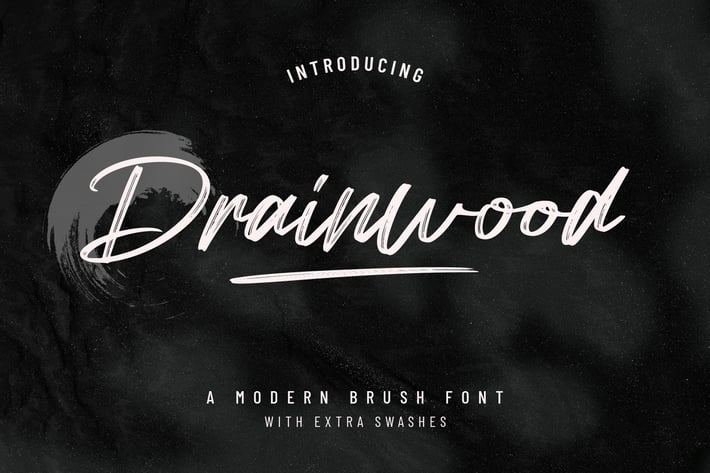
Drainwood Natural Brush Font
Drainwood is a modern brush script that is perfect for any modern design. It can be used for various purposes such as logos, wedding invitations, headings, t-shirts, letterhead, signage, labels, news, posters, badges and so much more.